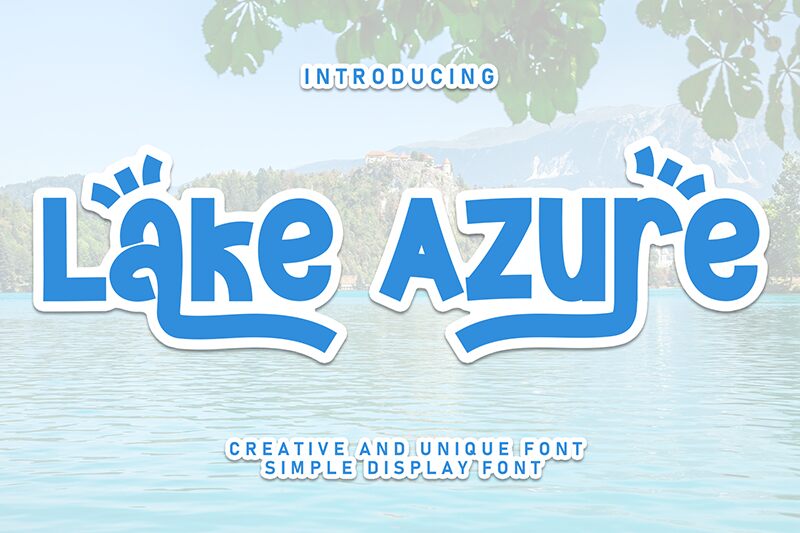
Lake Azure
Lake Azure font by Scratchones is a display cartoon typeface with a bold appearance and whimsical feel. Its rounded, chunky letters give it a retro vibe with the addition of outlined shapes for funky presentations. And although it carries playfulness at its core, this free typography design can bring originality to creative projects both old-school and modern.
Posters, greeting cards, stickers, tattoos, comic books, fun adult coloring books; Lake Azure would certainly shine in each one of them. It also suits book covers that grab readers’ attention from across the room so you can use it to create children’s book covers or food logos for establishments.